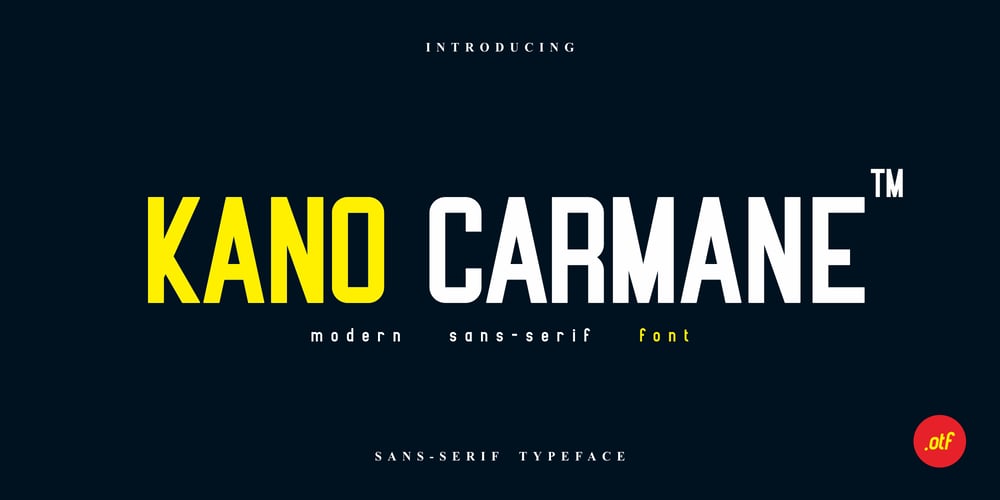
Kano Carmane
Kano Carmane font
Kano Carmane Font Family was designed by Akhmad Afandhi and published by Evo Studio. Kano Carmane contains 2 styles and family package options. Introducing Kano Carmane, a minimalist yet striking sans serif font. Immaculate in its presentation, this refined typeface is a picture-perfect choice for film posters and attention-grabbing headlines. Its bold profile beautifully lends itself to eye-popping block letters and crystal-clear subheadings. Plus, with its professional appeal, Kano Carmane is also the go-to font for creating standout logo designs and much beyond. Dive into the world of Kano Carmane and let its simplicity carve a unique design narrative.